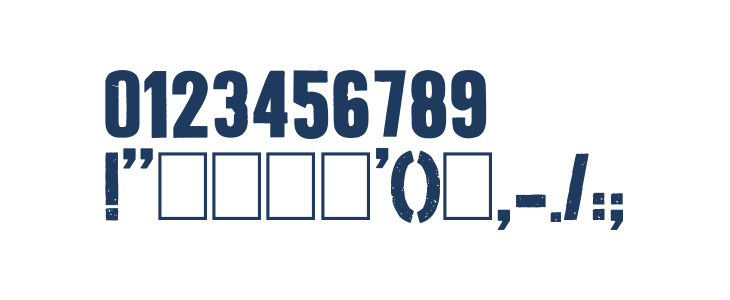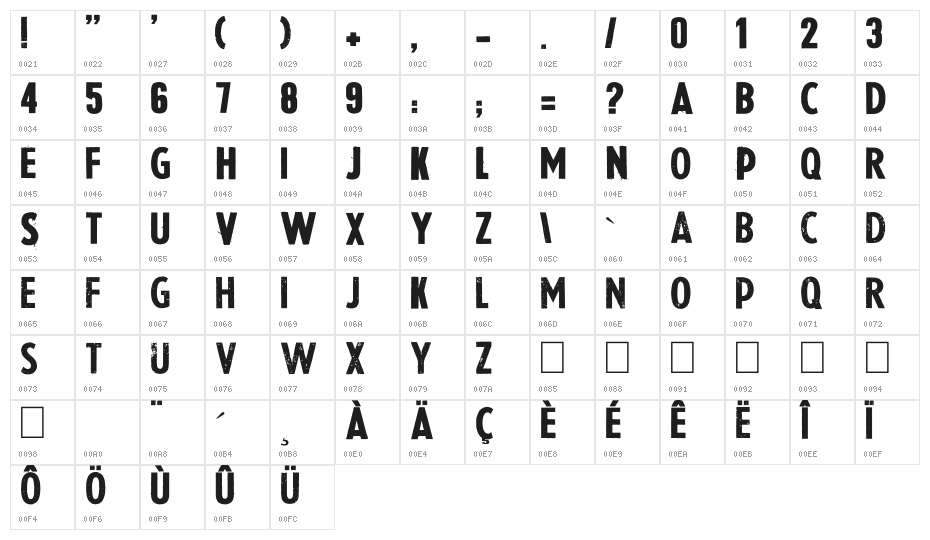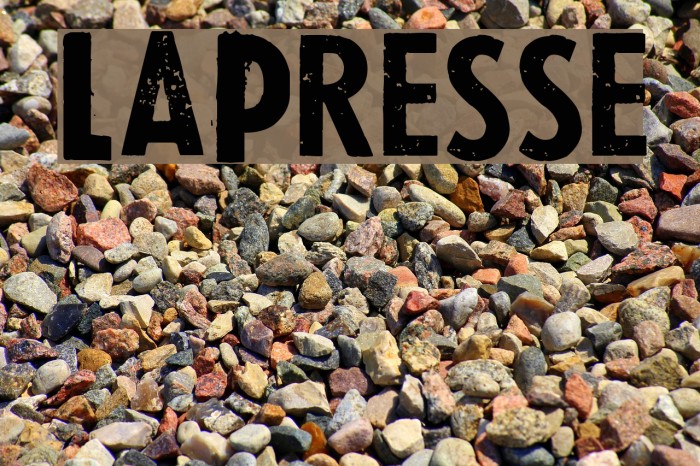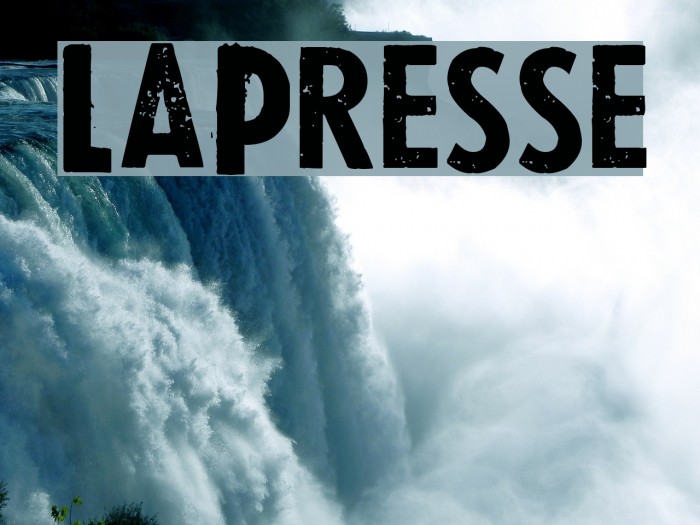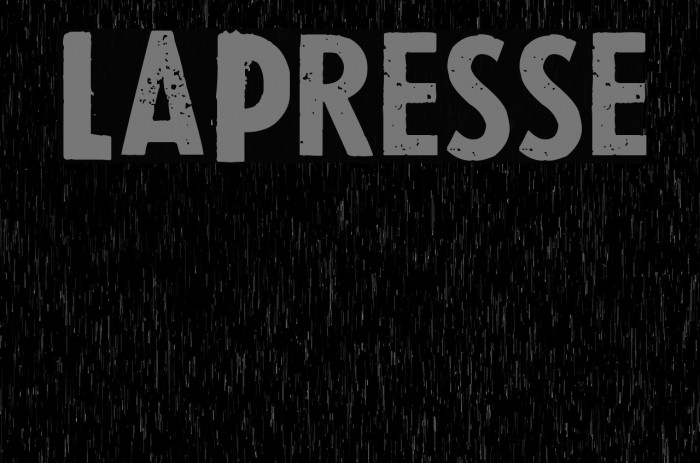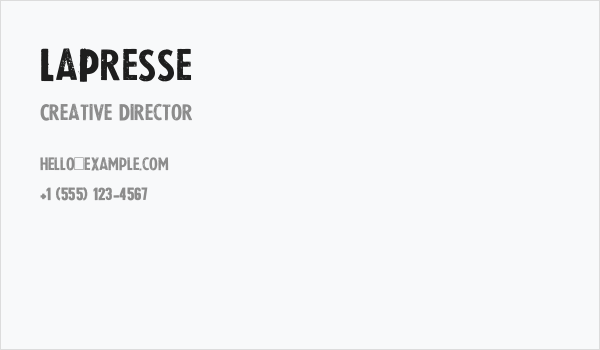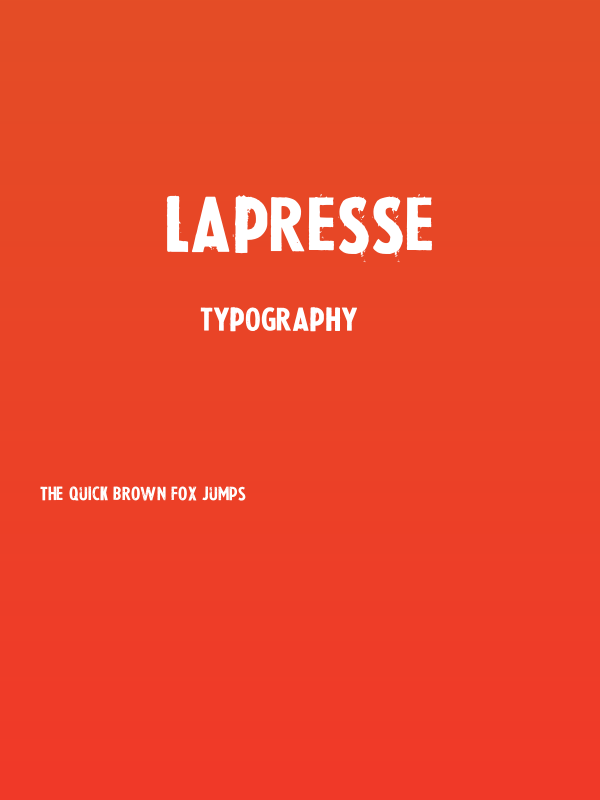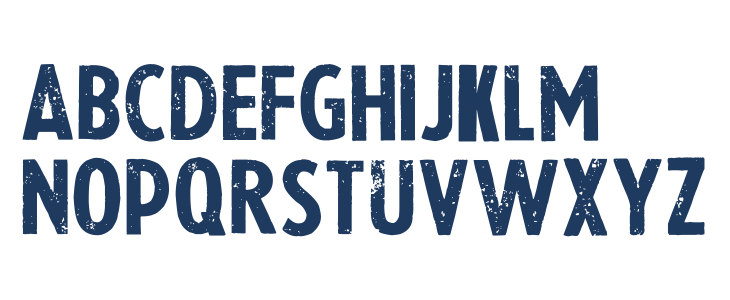
LaPresse Font
LaPresse Description
This font features a bold and distressed style, characterized by its rough, textured appearance. The uppercase and lowercase letters maintain a consistent weight, giving it a strong presence. The numbers and special characters follow the same distressed aesthetic, adding to its rugged charm. The font's design is reminiscent of vintage print styles, making it ideal for projects that require a touch of nostalgia or a gritty, urban feel. Its boldness ensures readability while the distressed elements add a unique personality.
| Proposed Projects | Ideal for posters, album covers, branding for vintage-themed products, and any design requiring a bold, gritty aesthetic. |